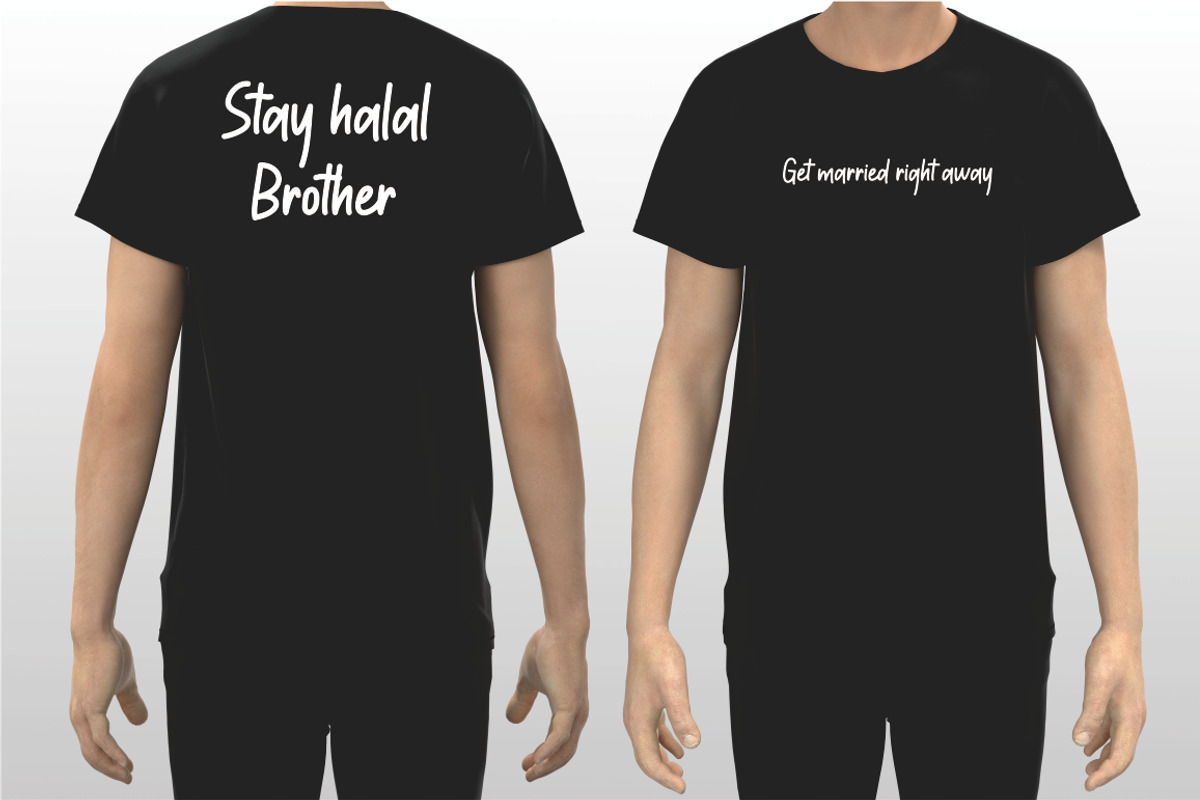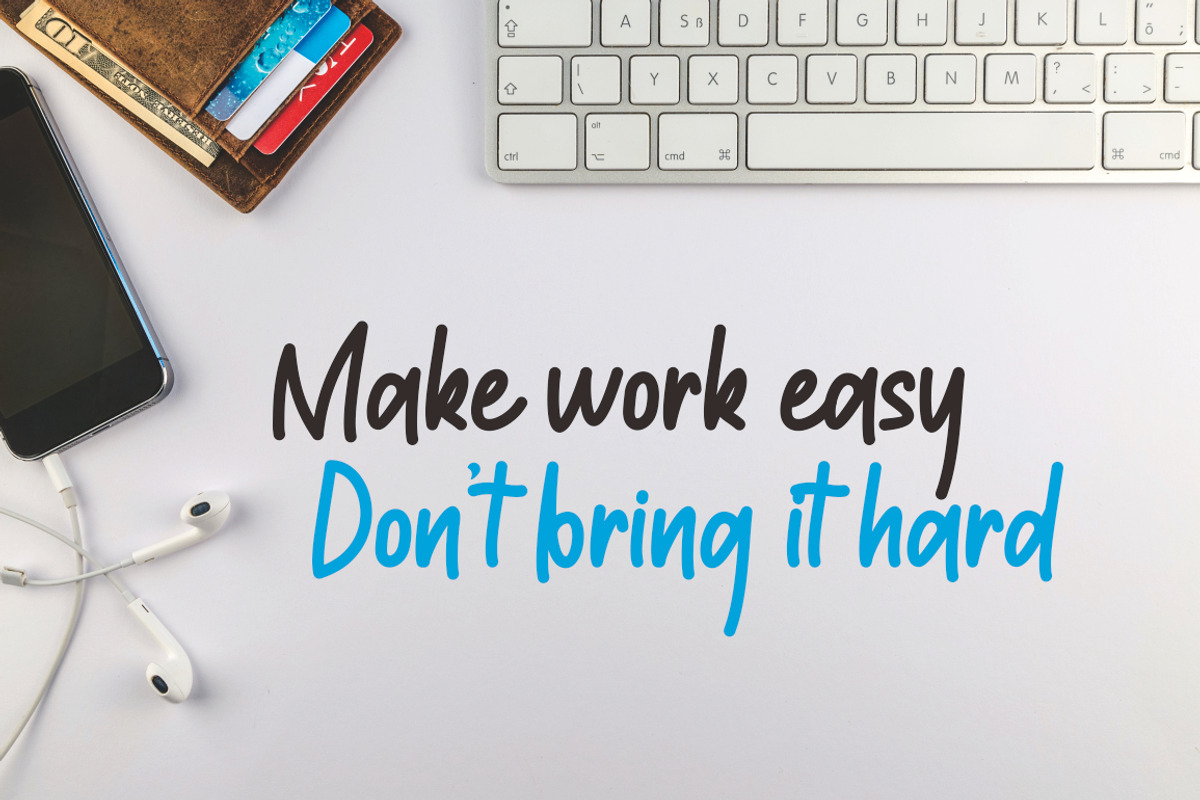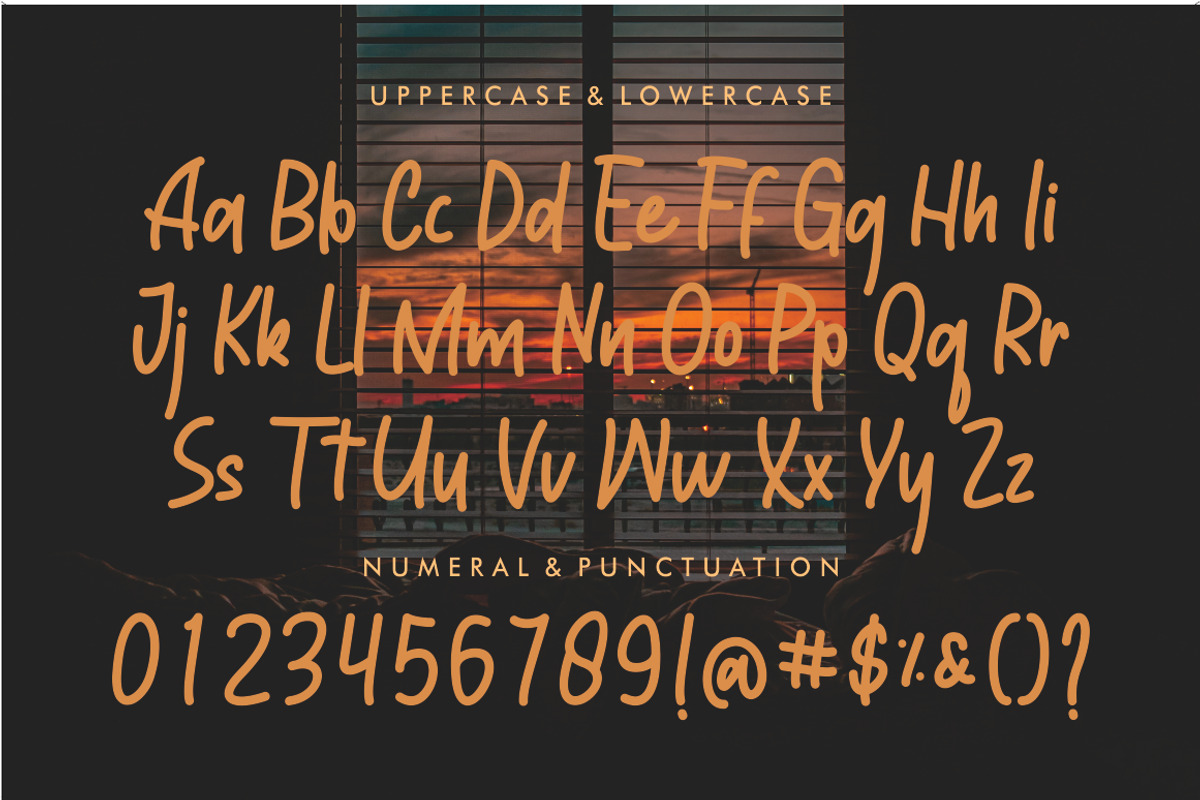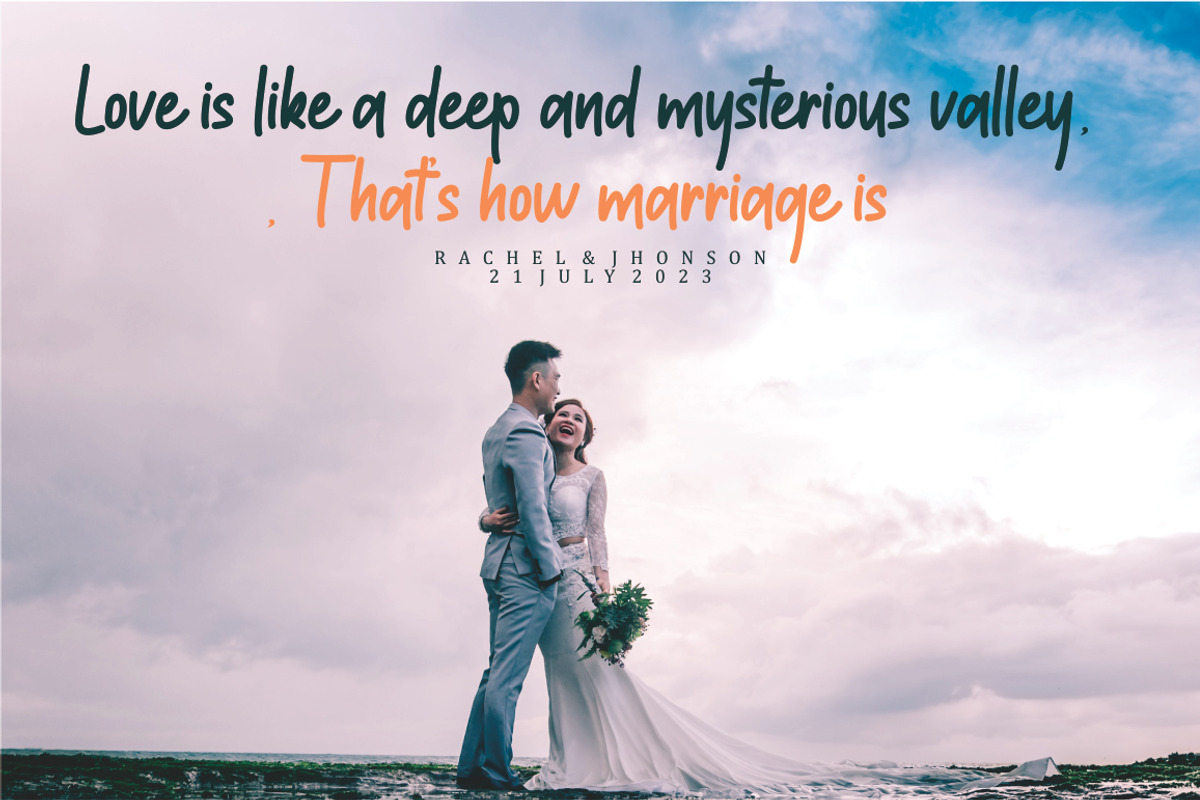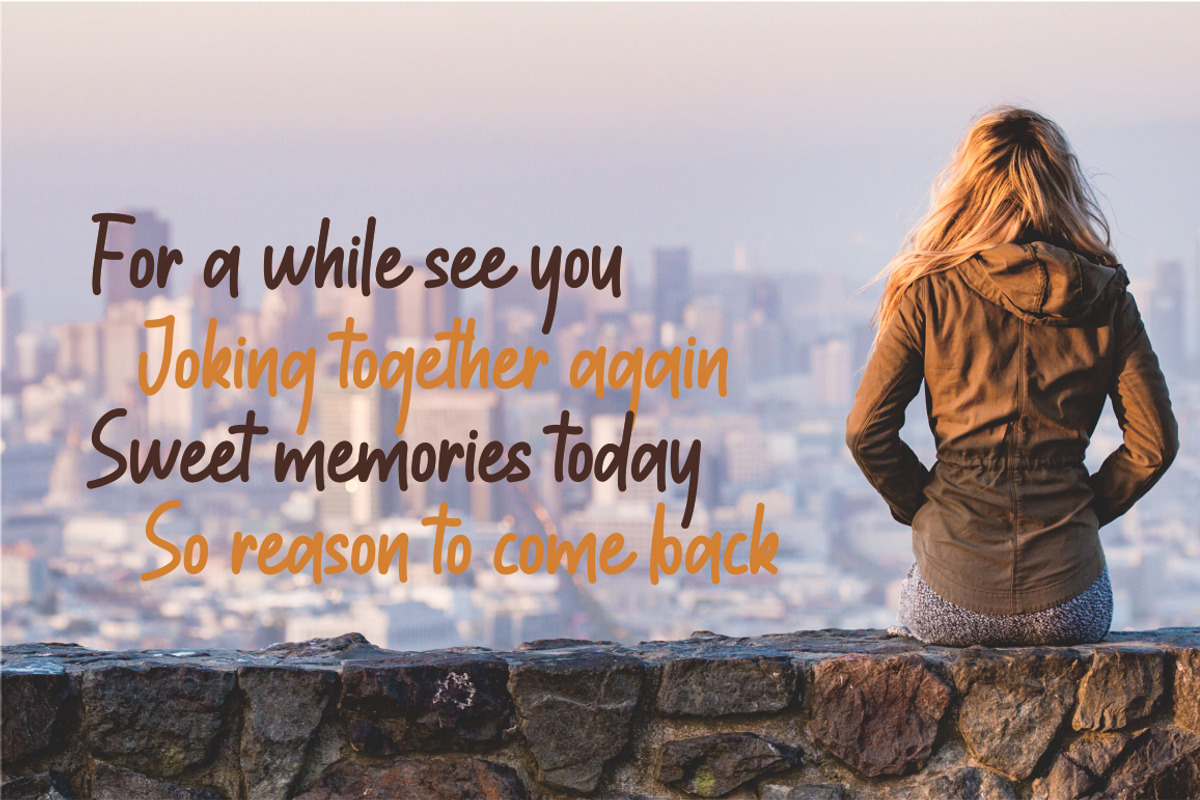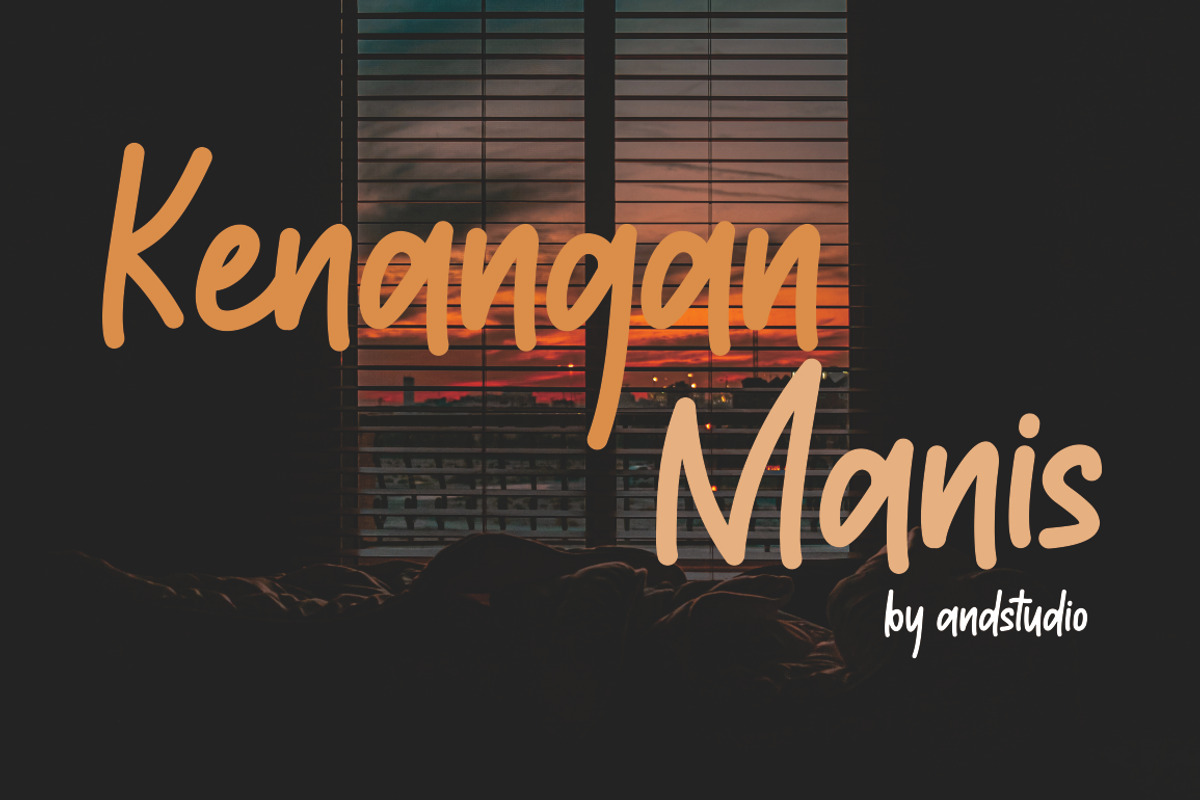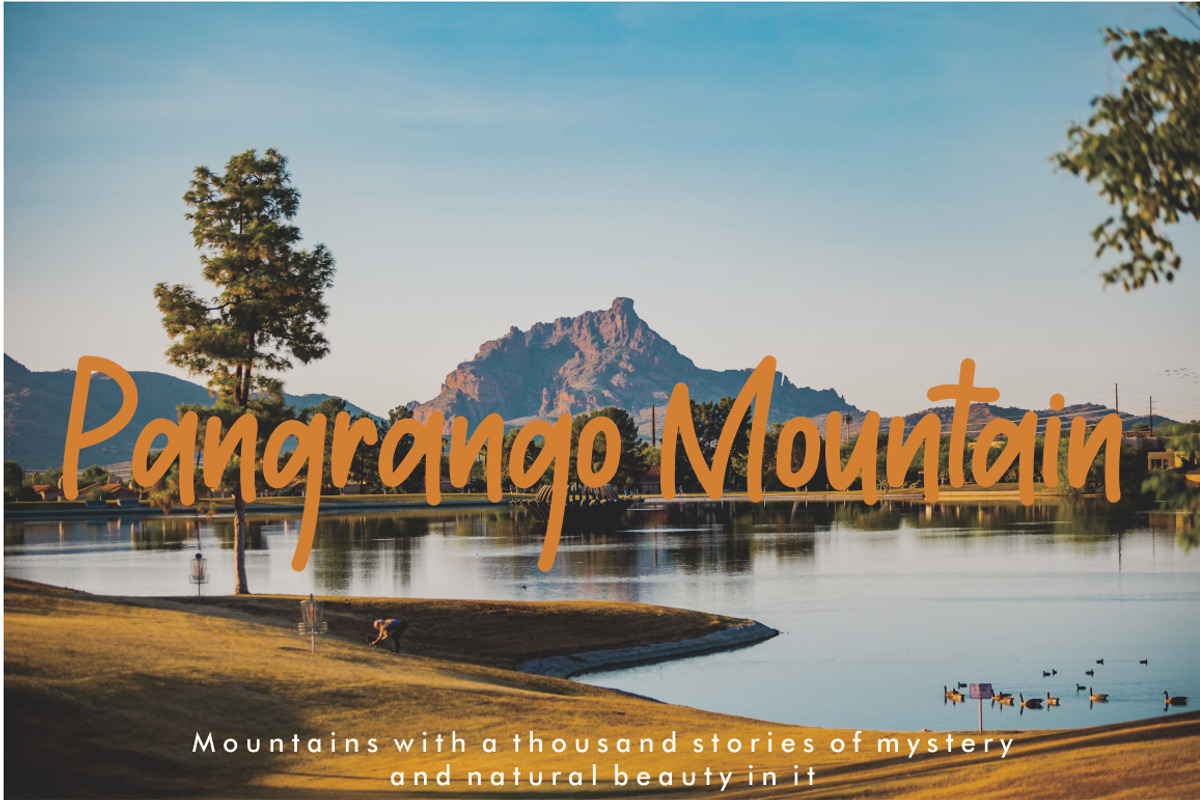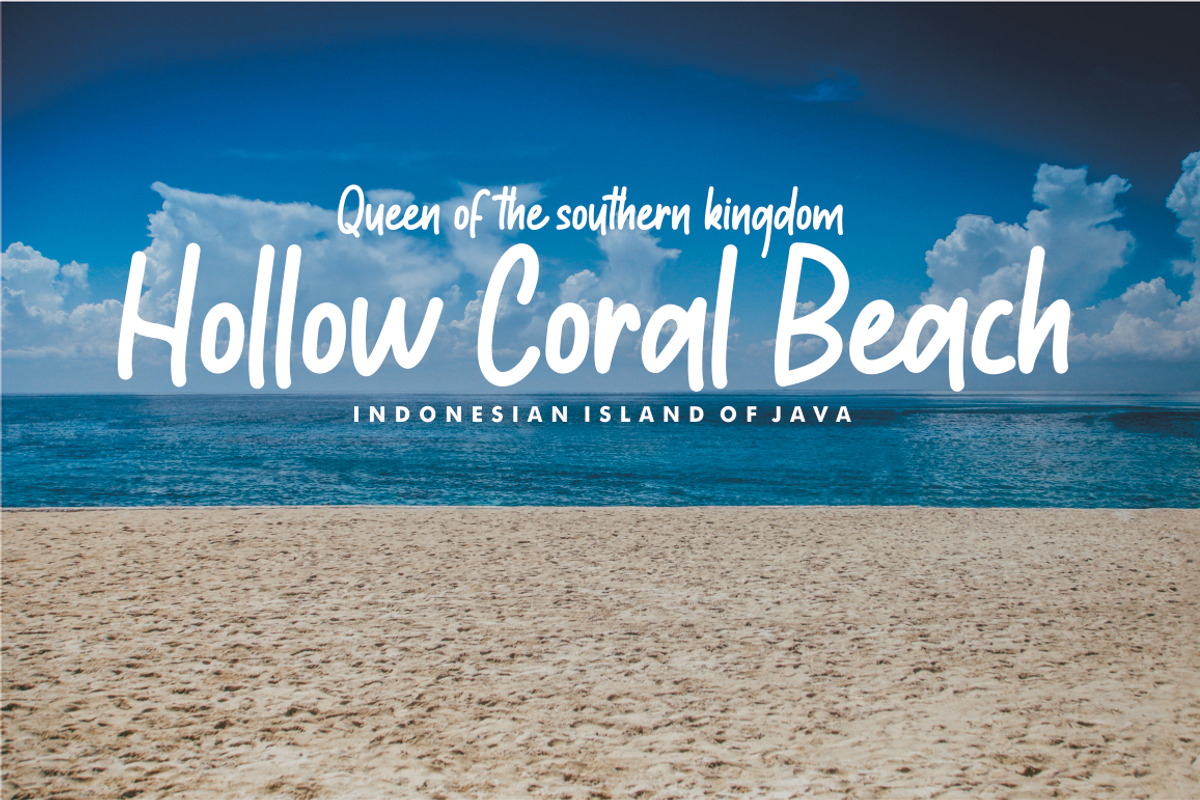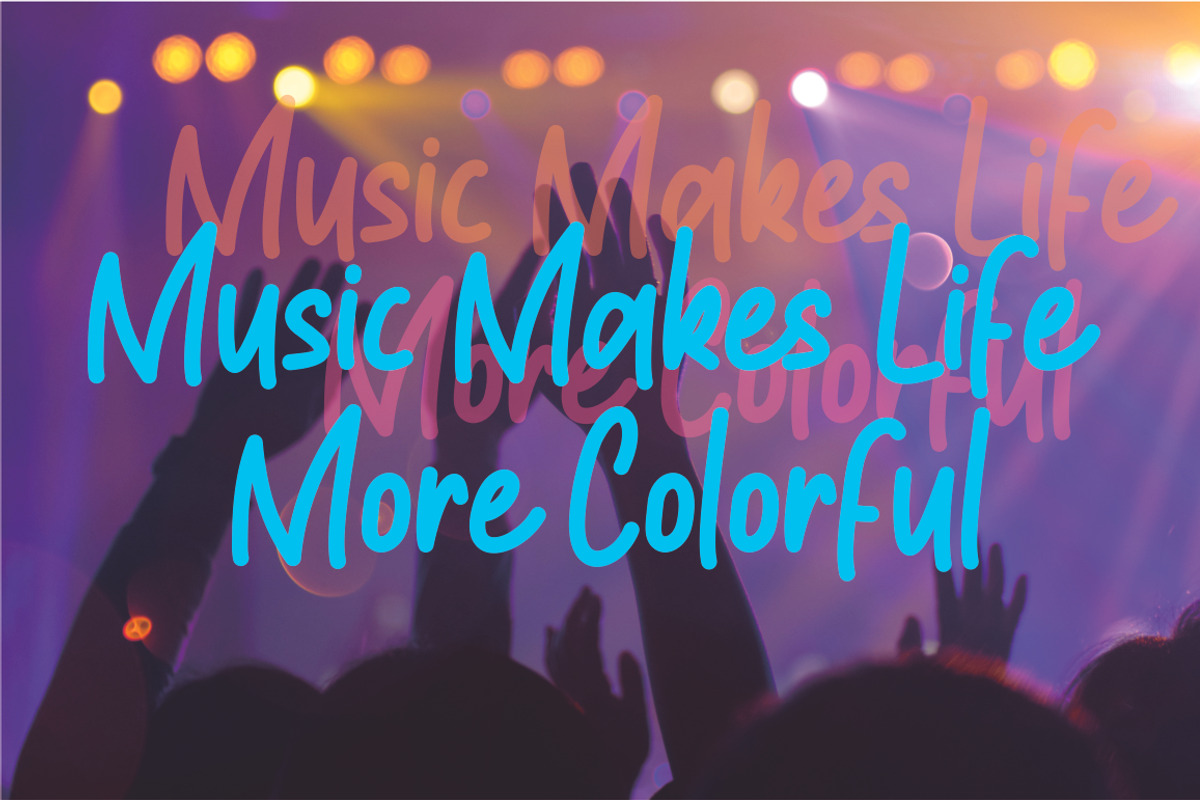
Kenangan Manis
Kenangan Manis is a beautiful, natural, and cursive handwritten font. It looks amazing on clothing brands, thank you cards, quotes, greeting cards, logos, business cards, and every other design that needs a handwritten touch.